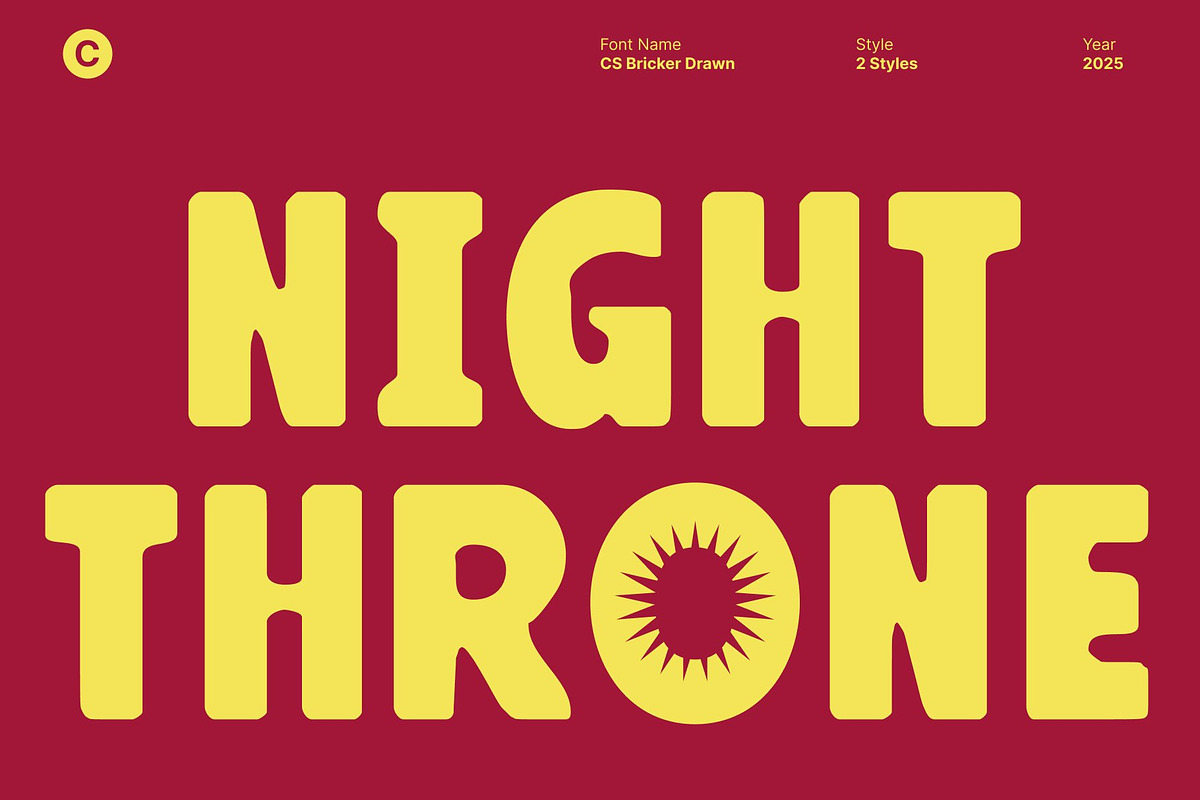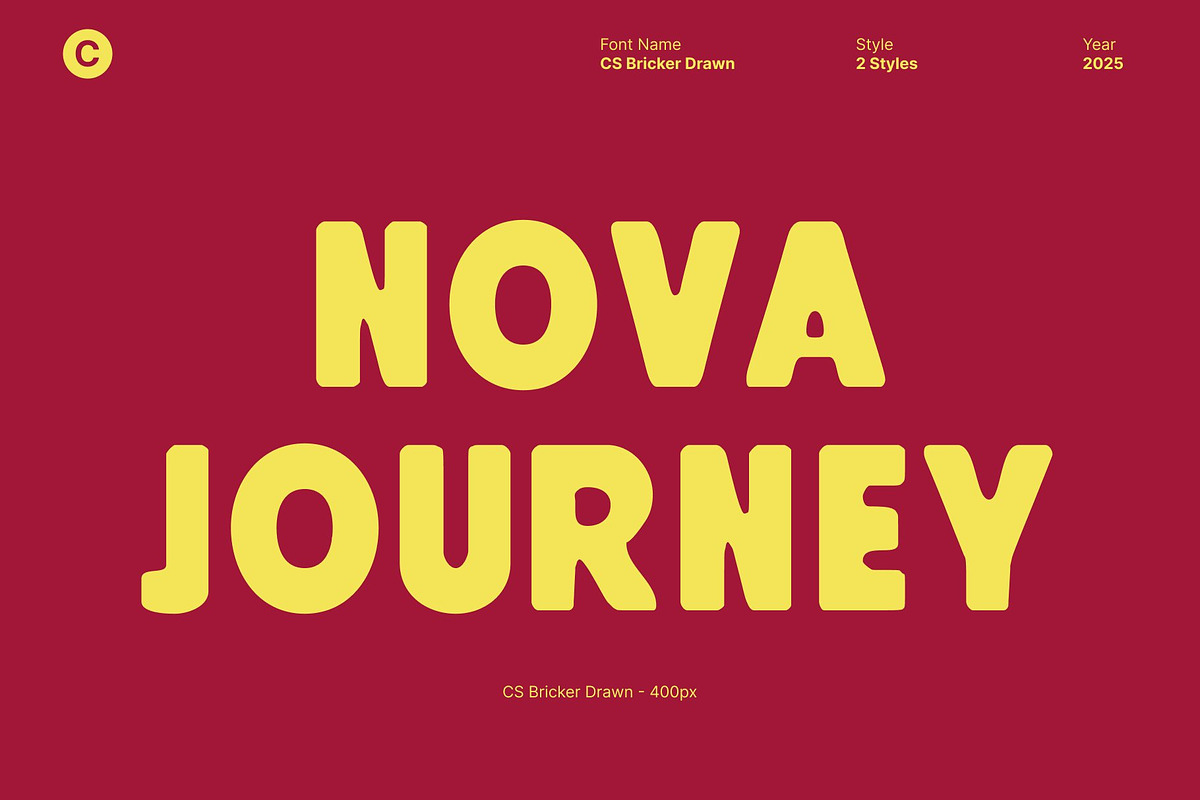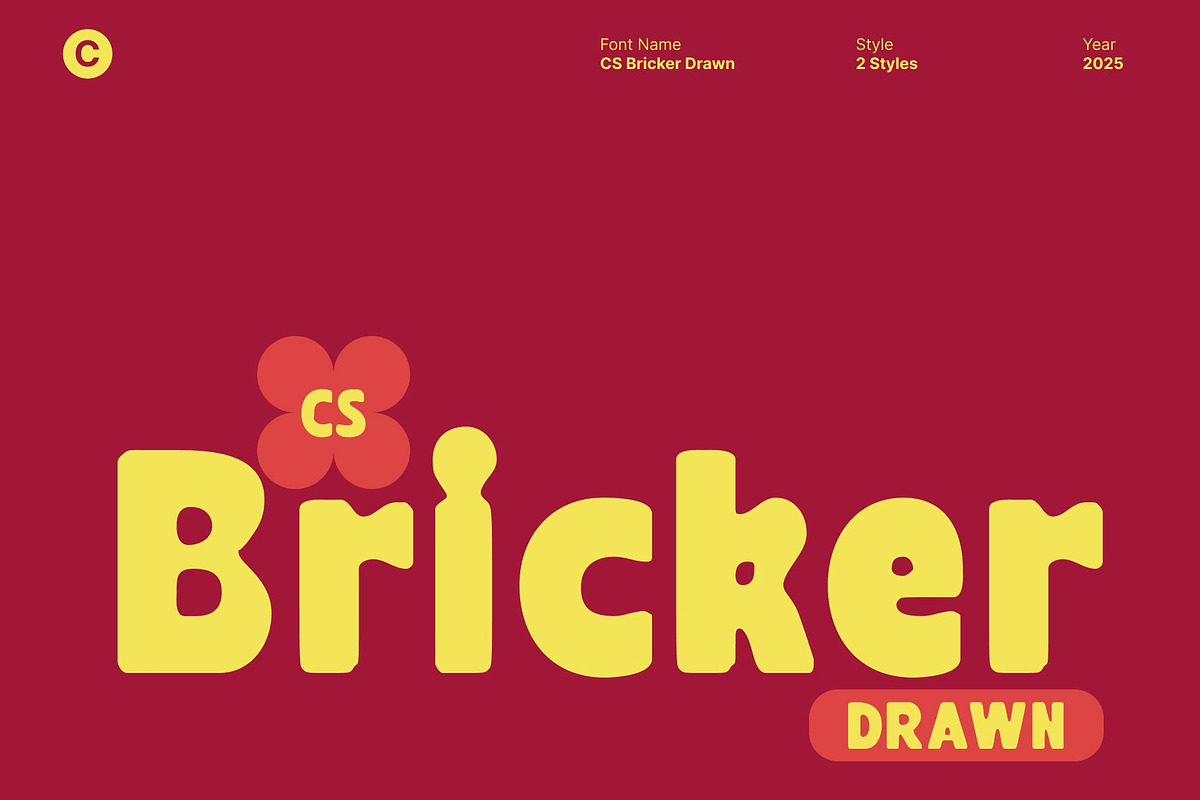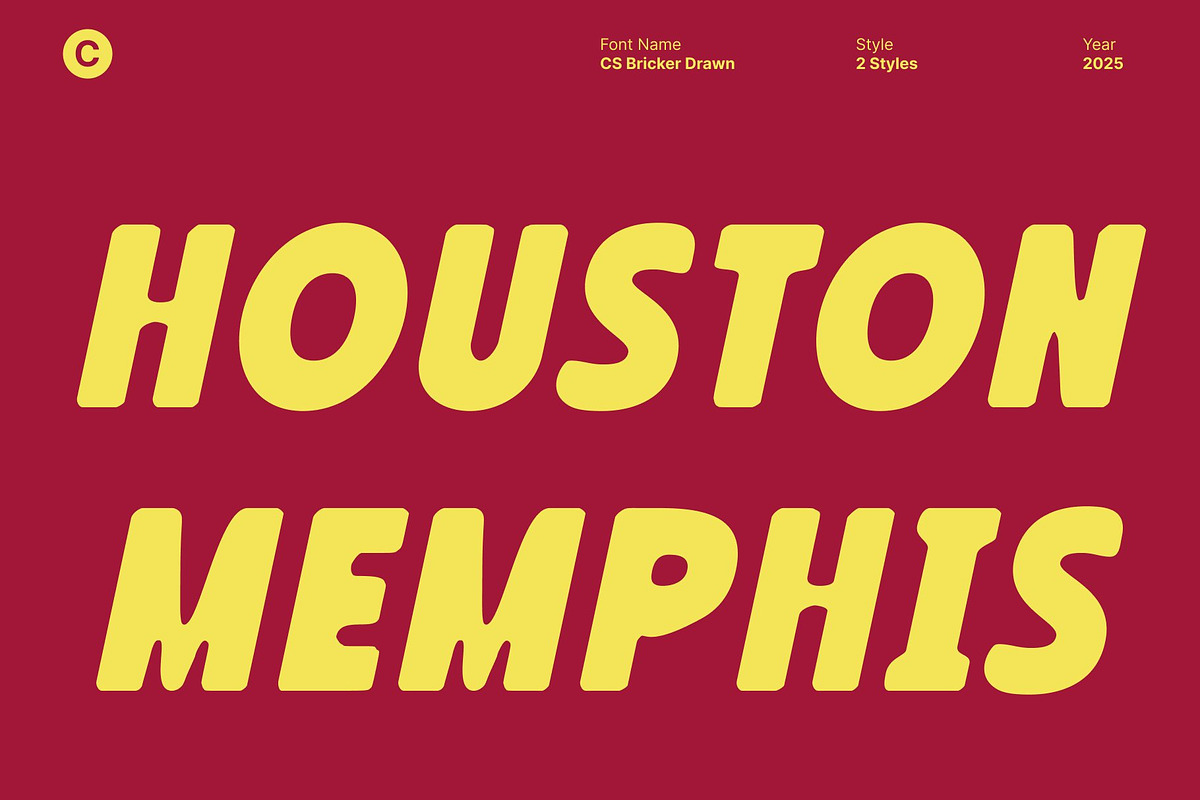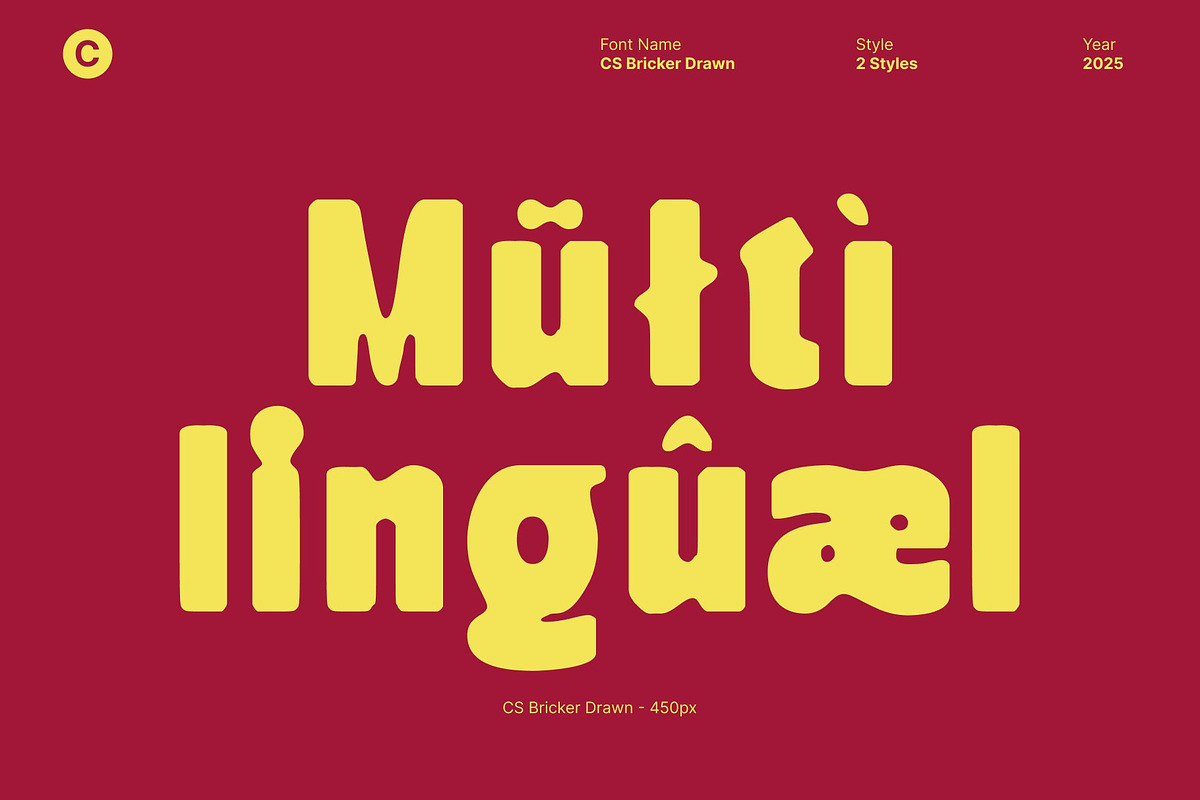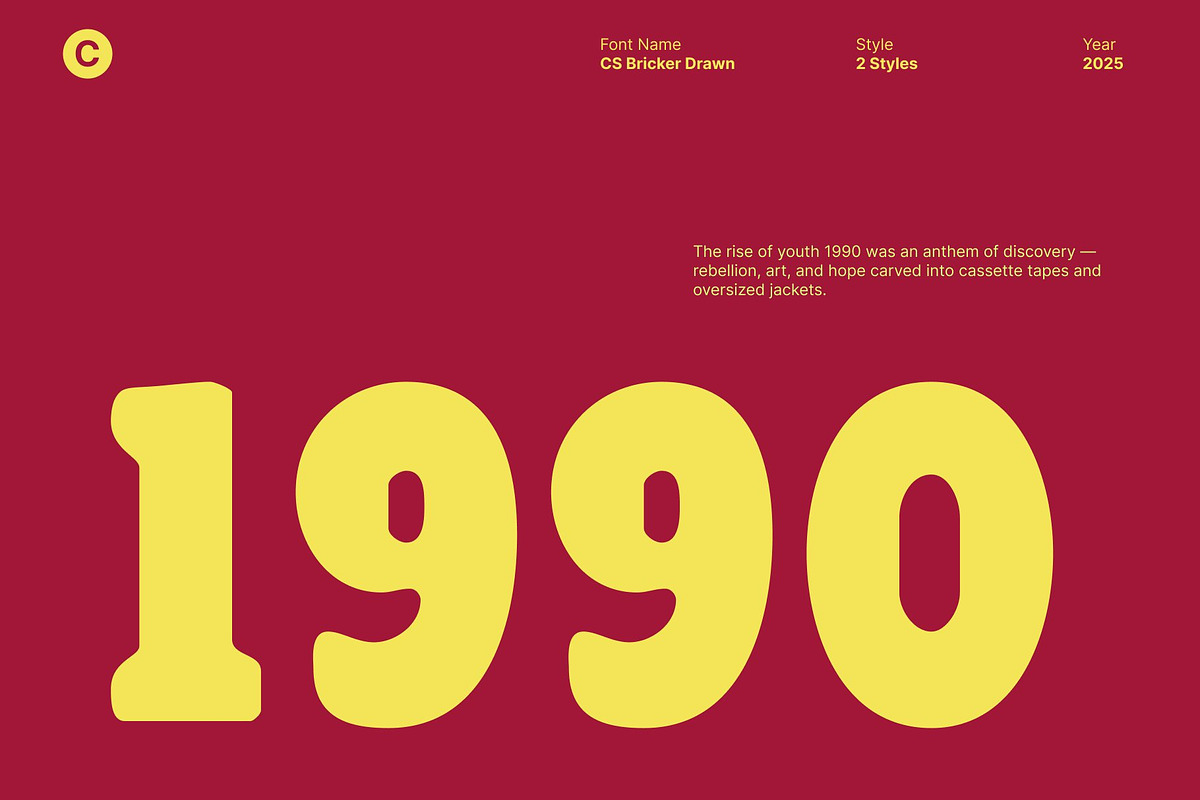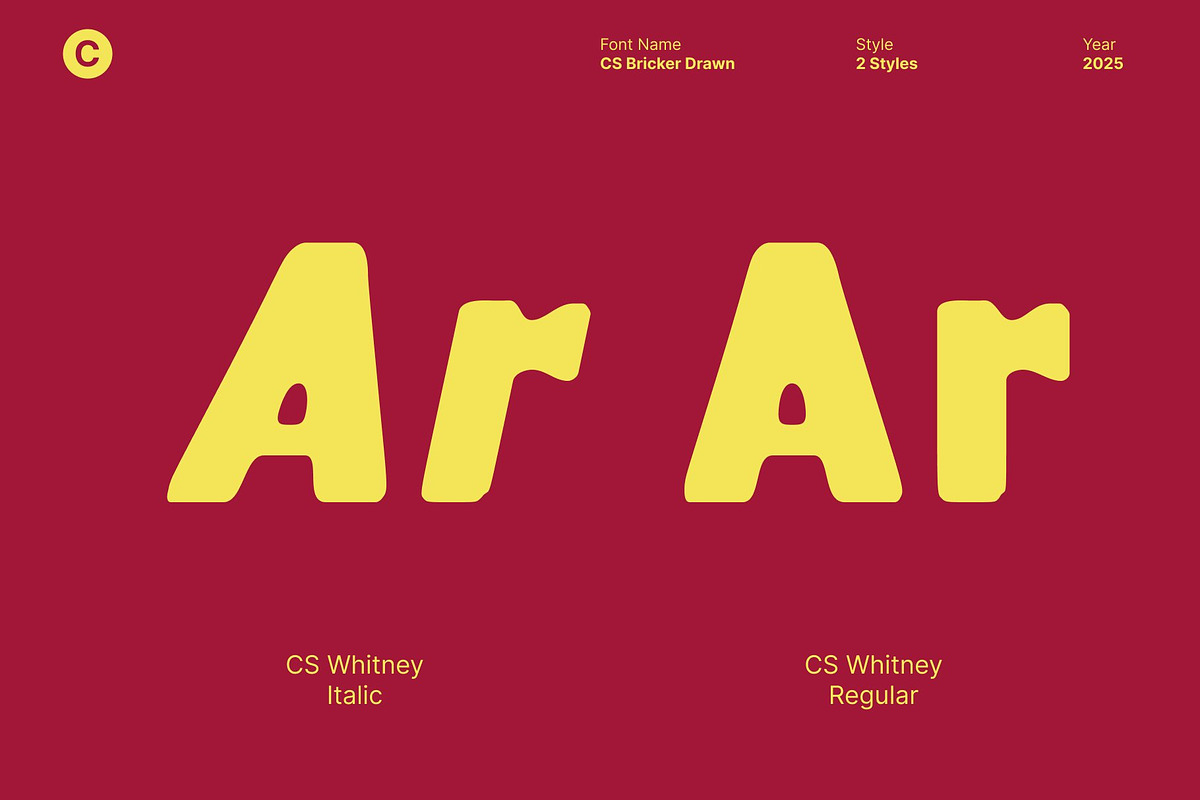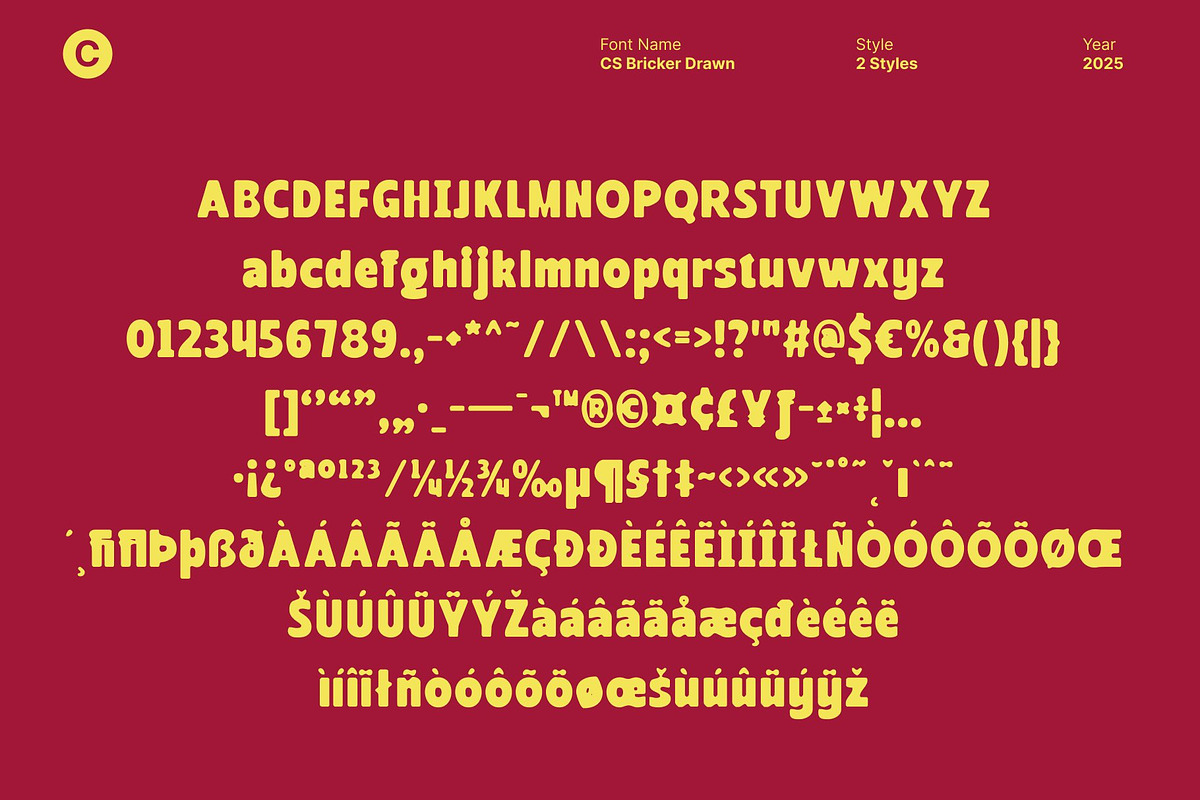
CS Bricker Drawn
CS Bricker Drawn – Bold Display Font with Funky Hand-Drawn Personality
Bold Shapes with a Funky Creative Edge This stands out with its strong, clean sans serif structure enhanced by bold display proportions. While rooted in clarity and modernity, the font introduces a funky twist through its energetic forms, giving every letter a fresh and unconventional feel. This unique balance makes it perfect for designs that demand confidence with personality.
Hand-Drawn Texture for Expressive Character Adding to its visual impact, this font features a crafted drawn texture that enriches the entire typeface with authentic, handmade charm. The imperfect strokes and organic details bring warmth and artistic depth, making the font feel more human, expressive, and visually dynamic.
Perfect for Bold Headlines and Eye Catching Posters Designed for maximum visibility, this font excels in headlines, titles, and poster layouts. Its powerful shapes grab attention instantly, while the funky character ensures your message feels fun, daring, and memorable. Whether used in event posters, music promotions, or social media graphics, the font creates immediate visual impact.
Ideal for Unique Branding and Standout Identities For branding projects that require individuality, this font offers a distinctive voice. Its combination of bold forms and expressive drawn texture gives logos, packaging, and merchandise a strong personality. It’s perfect for creative brands, youth-focused products, lifestyle businesses, or any project that values boldness, originality, and artistic flair.